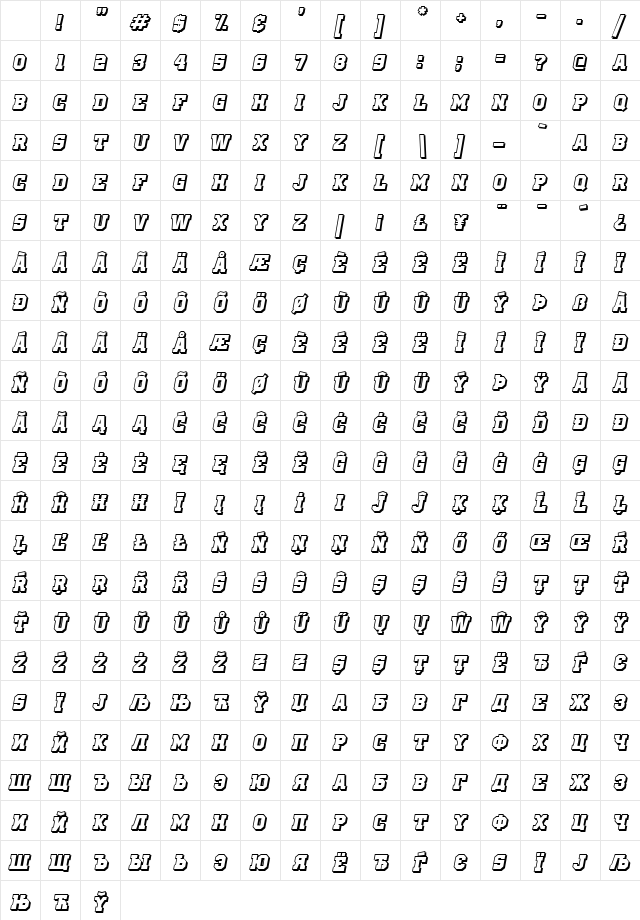
Old School United is built around its visual character rather than neutral utility - its distinctive forms are designed to make an impression at display sizes. The slanted form adds forward momentum and visual energy.
Font Pairing: Pair with a clean neutral sans-serif for body copy to let Old School United's character lead without overwhelming the composition.
Pro Tip: Use Old School United exclusively at display sizes - it was designed to be seen, not read at length. Let a neutral companion handle body copy.